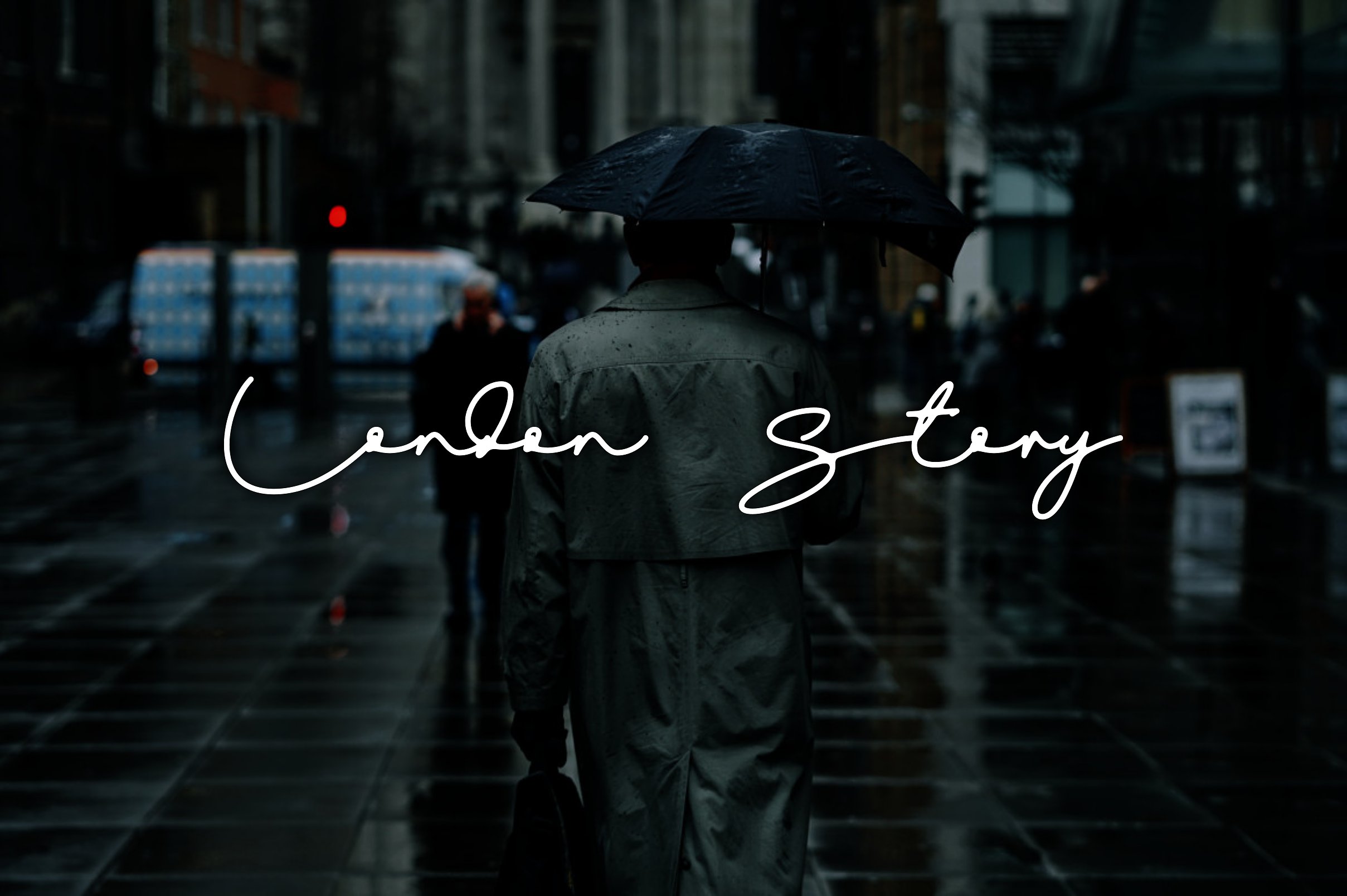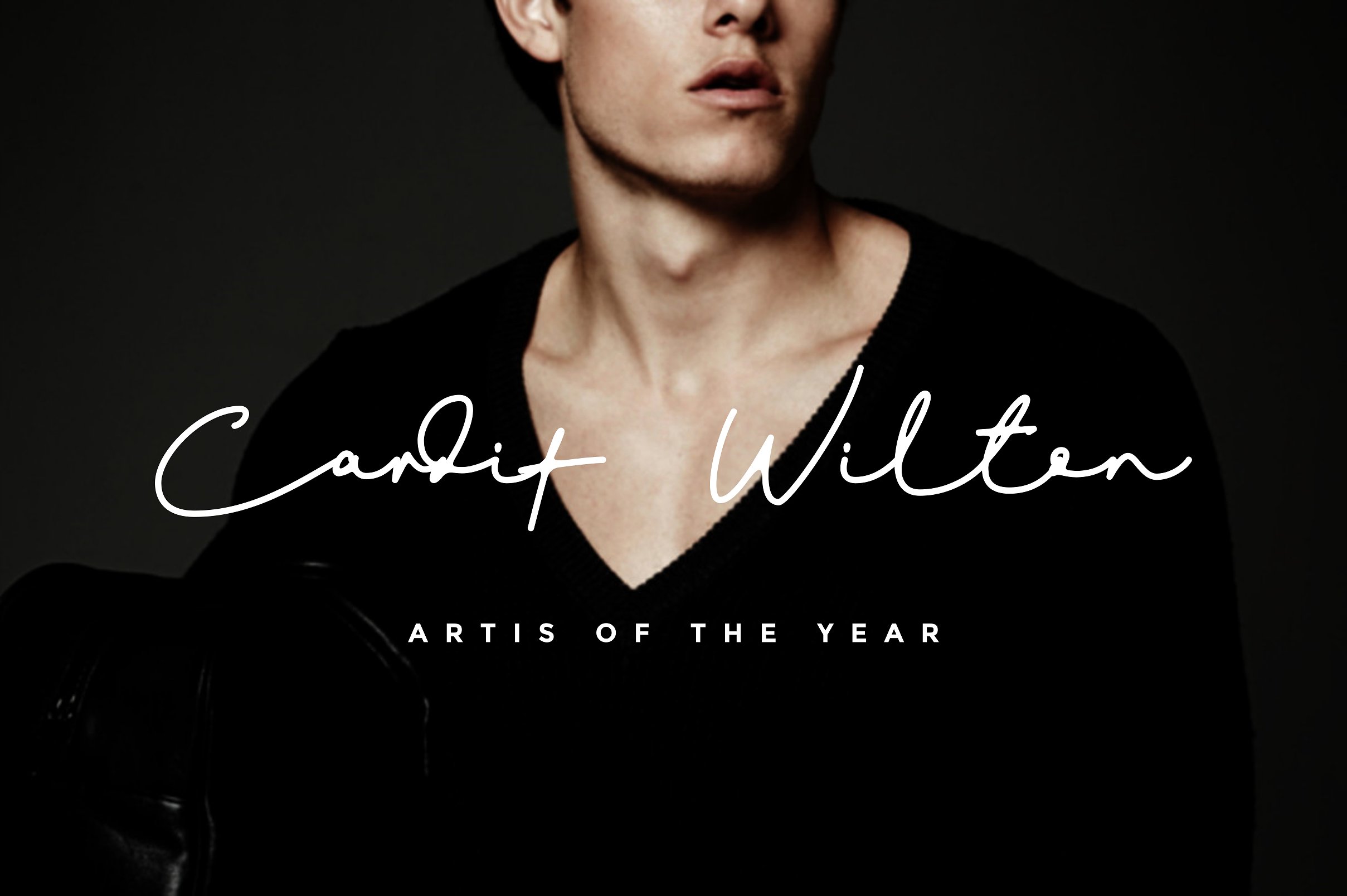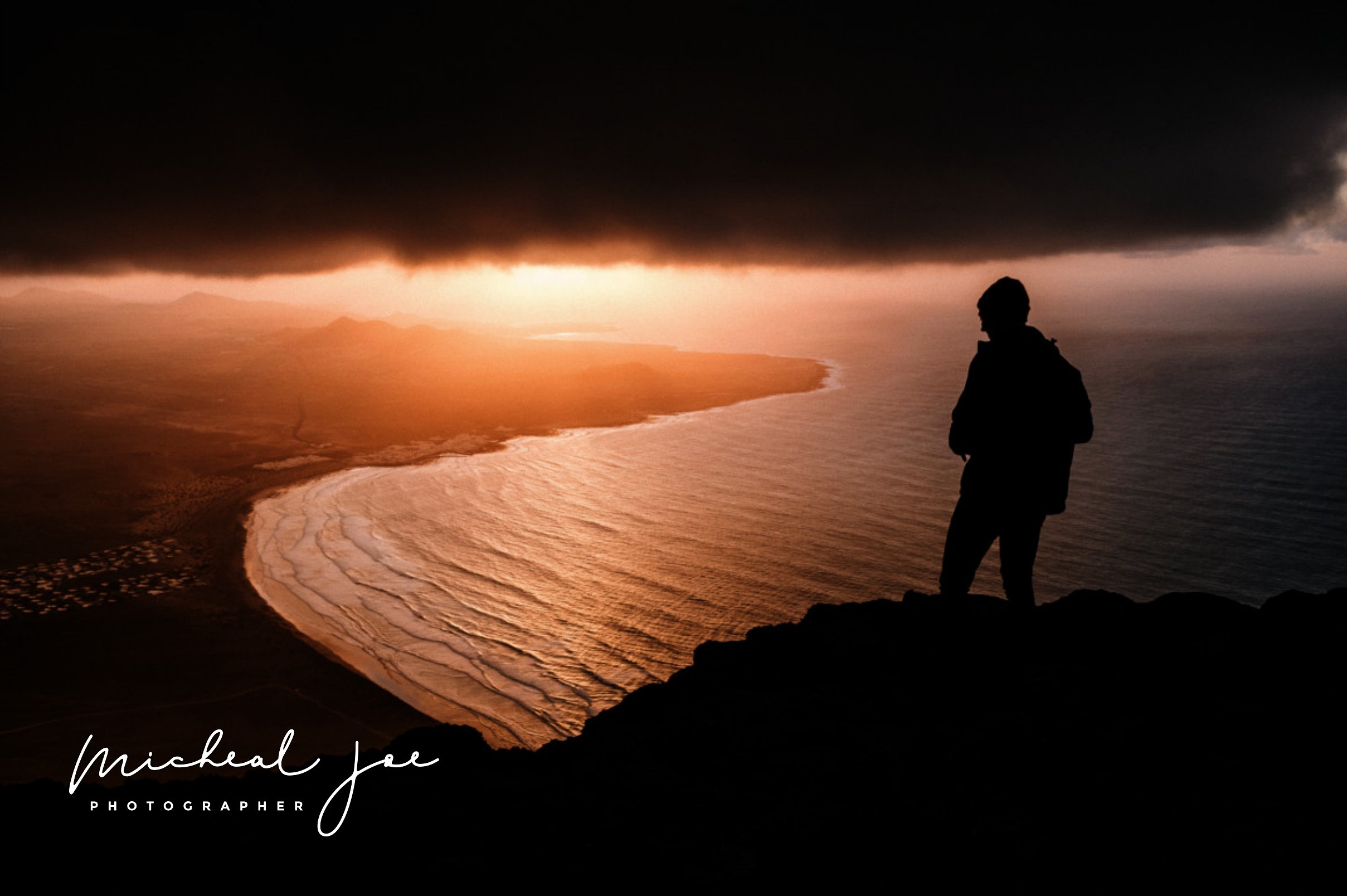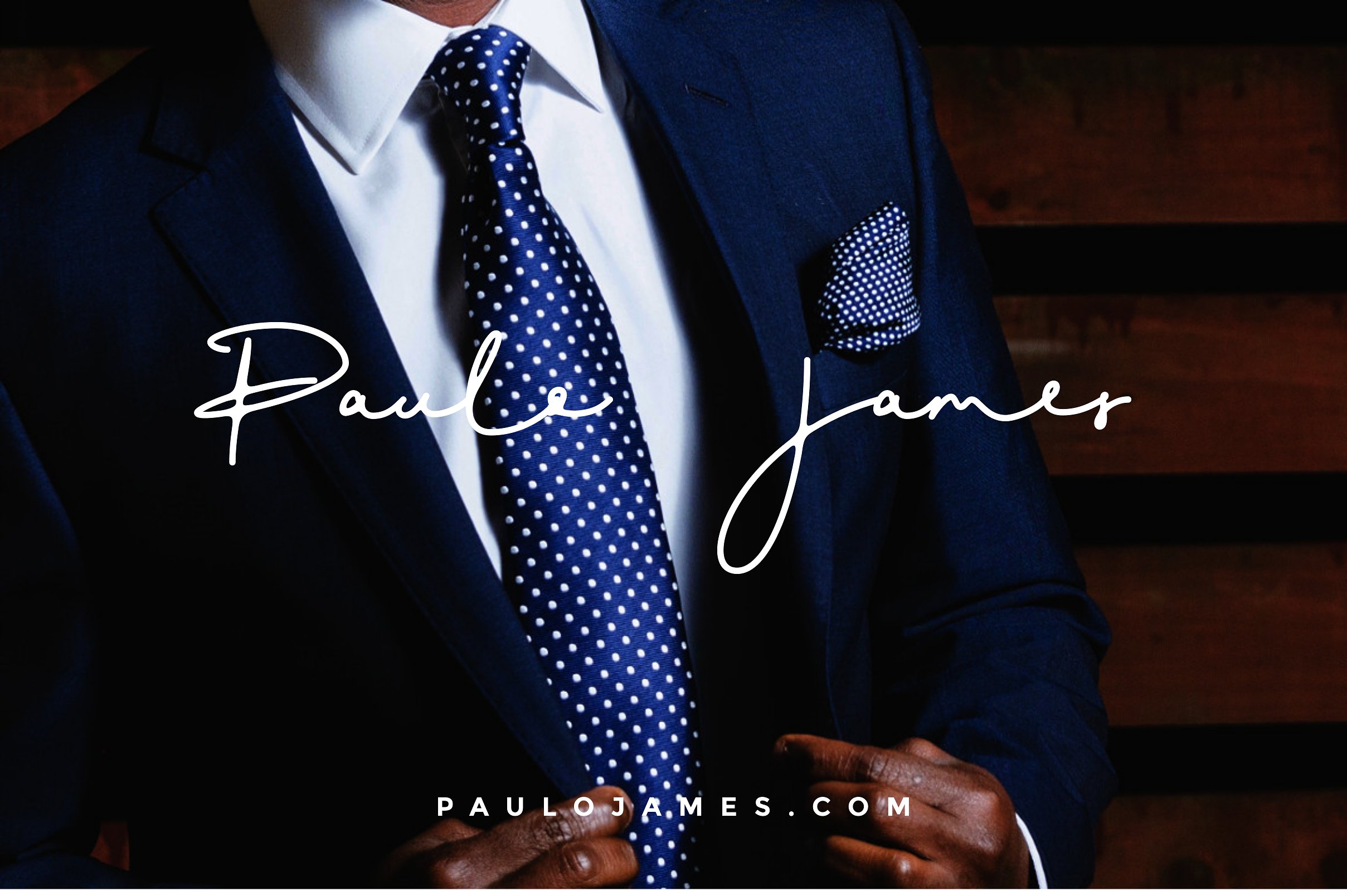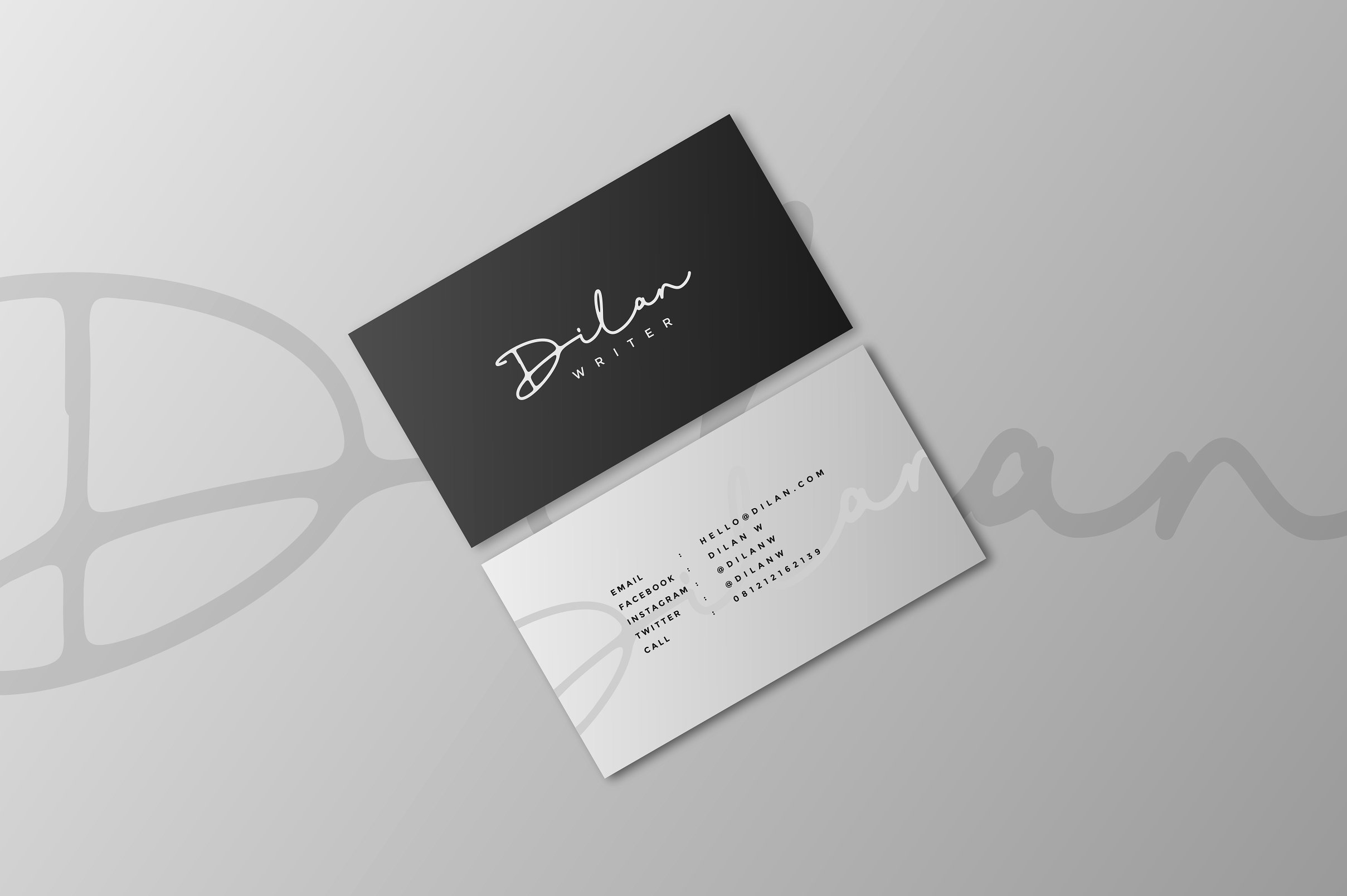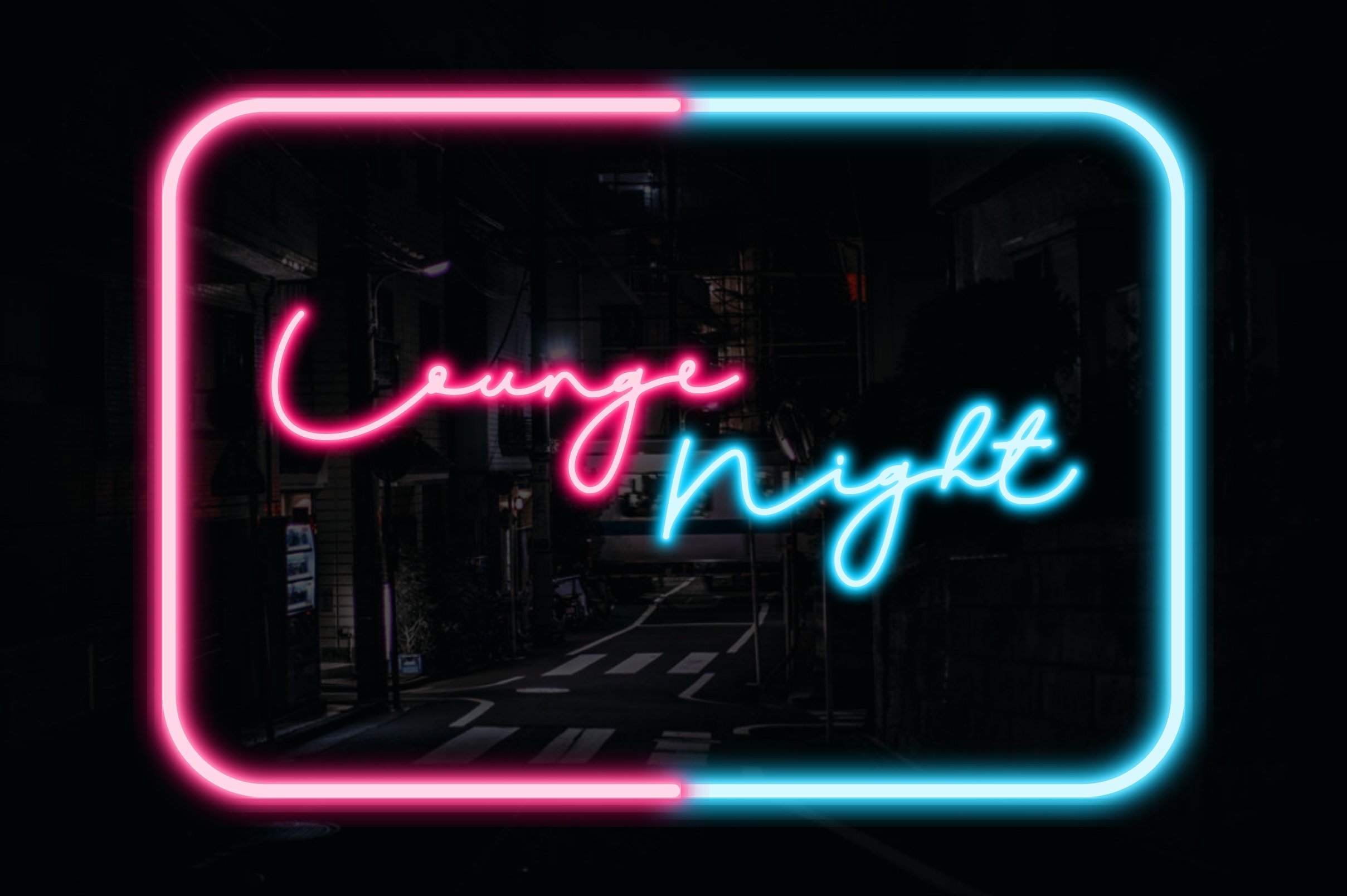
The Dream Only Font: A Creative Game-Changer for Designers and Crafters
Have you ever been in the middle of a design project, and suddenly, you’re stuck on finding the perfect font? I recall a particularly frustrating experience when a client asked for a custom logo with a very specific, handwritten feel. After hours of searching, I stumbled upon the Dream Only font, and it was love at first sight! ✨ This beautiful, handwritten script font has since become a staple in my design toolkit, and I’m excited to share its awesomeness with you.
An Honest Review: The Good and the Quirky
What I Love About Dream Only
- ✨ Unique, hand-crafted feel: Dream Only boasts a distinctive, casual script style that adds a personal touch to any project.
- ✅ Versatility: This font works stunningly well in a wide range of project types, from logotypes and watermarks to social media graphics and more.
- 💫 Ease of use: Despite its intricate design, Dream Only is surprisingly easy to read and work with, even at smaller font sizes.
While Dream Only is an amazing font, it’s not without its quirks. For instance:
- 🤔 Limited use in formal contexts: Due to its casual, handwritten nature, Dream Only might not be the best fit for very formal or corporate projects.
- ⚠️ Glyph coverage: While the font comes with a range of OpenType features, some users might find the glyph coverage a bit limited for certain languages or special characters.
- Experiment with OpenType features, such as stylistic alternates, to add more flair to your design.
While the origins of Dream Only are shrouded in mystery, it’s clear that the designer aimed to create a font that captures the essence of handwritten creativity. Imagine a designer, sitting with a notebook and pen, pouring their heart into crafting a unique alphabet that’s both elegant and playful. That’s the spirit of Dream Only – a font that’s all about embracing individuality and self-expression.
Q: What type of projects is Dream Only best suited for?
A: Dream Only excels in creative projects, such as logotypes, watermarks, social media graphics, and crafts. Its casual, handwritten feel makes it perfect for adding a personal touch to your designs.
Q: Does Dream Only support multiple languages?
A: While Dream Only comes with a range of OpenType features, its language support might be limited. Be sure to check the font’s specifications and test it with your specific language needs.
Q: Can I use Dream Only in both digital and print projects?
A: Absolutely! Dream Only works beautifully in both digital and print contexts. Its clear, legible design ensures that your message shines through, whether on screen or on paper.